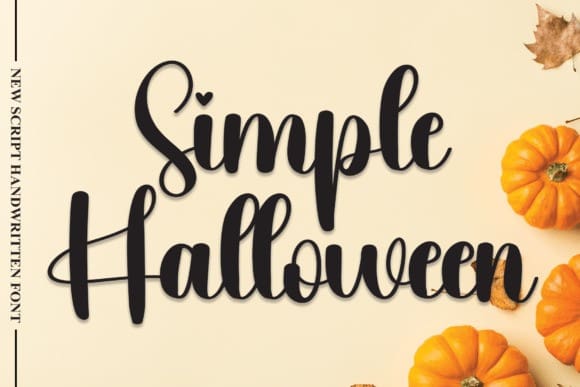
Simple Halloween Font
Simple Halloween Font, perfect for wall displays, wedding invitations, social media post logos, advertisements, product packaging, product designs, labels, photography, watermarks, invitations, stationery,
and any project that requires handwritten taste.